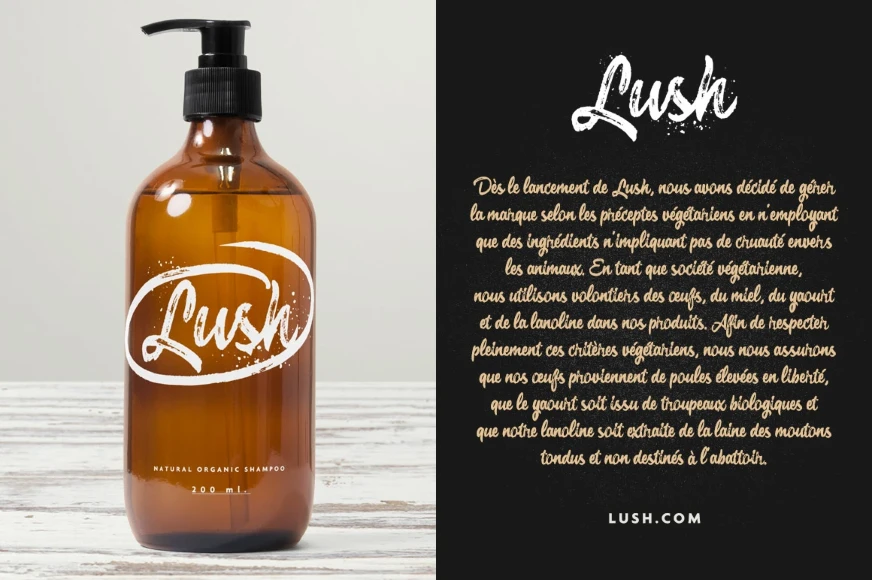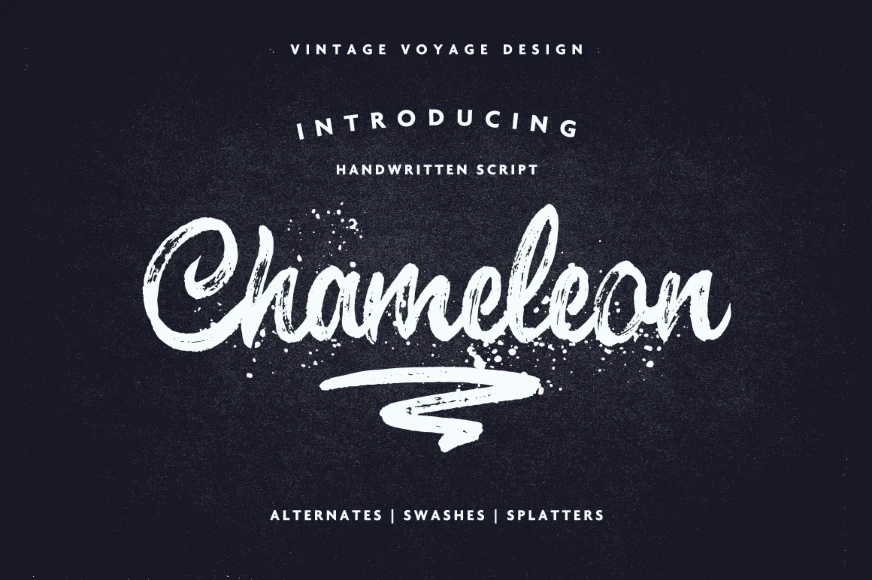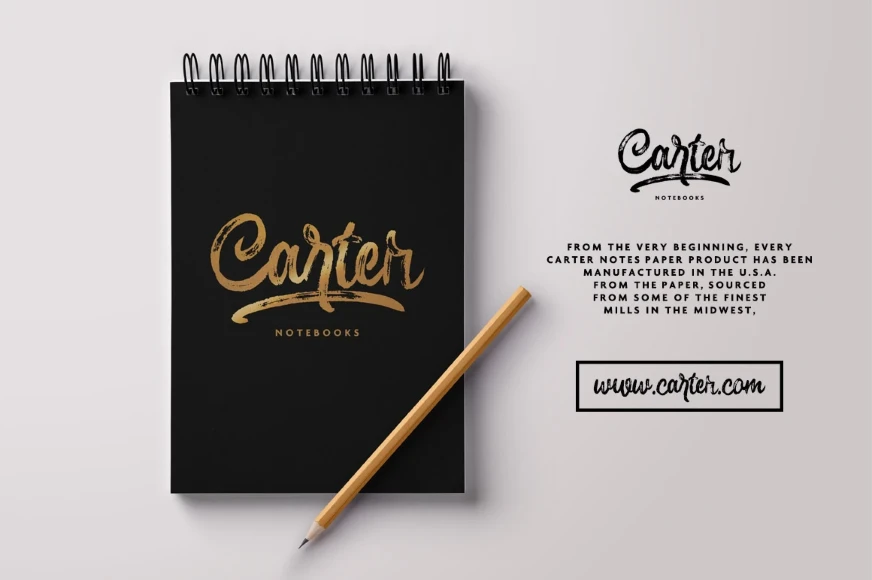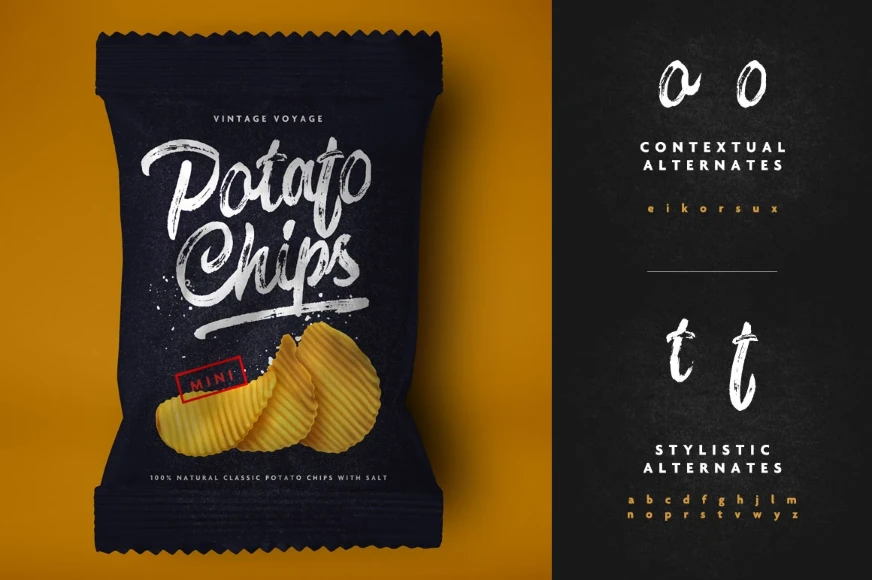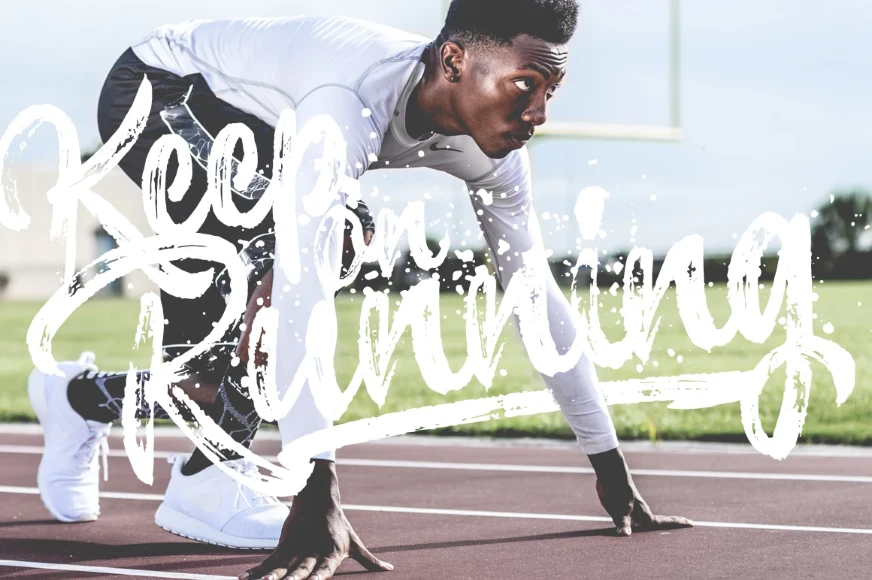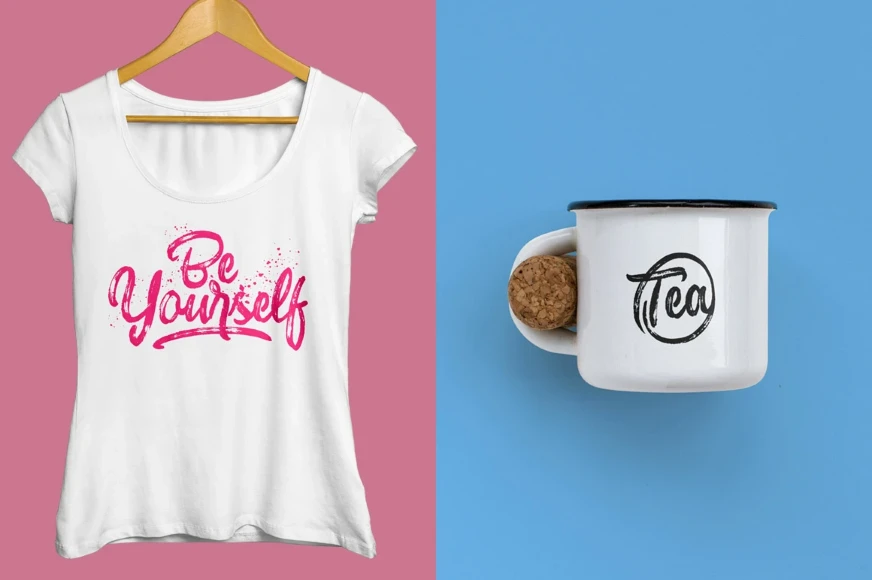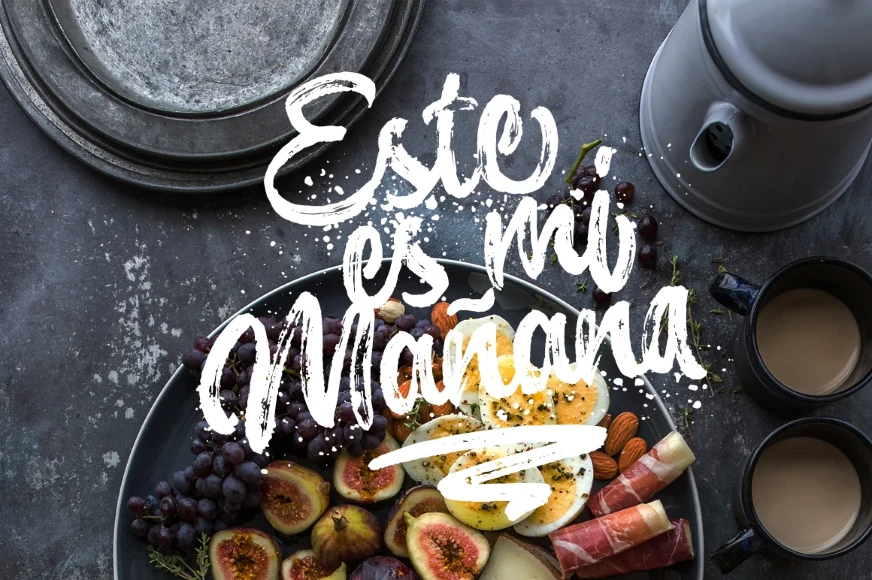
Chameleon
Chameleon Regular
Chameleon Swashes and Splatters
Chameleon is a bold hand-brushed script with rough edges and strong personality. Designed for projects that need energy and attitude. Great for posters, apparel, branding, and anything that calls for a raw, handcrafted touch. Full of character and made to stand out.